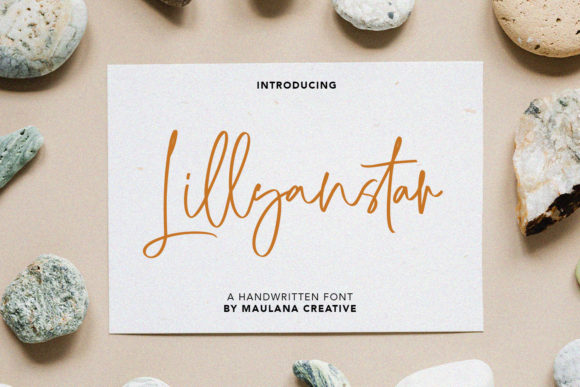
Dive into the world of Lillyanstar Font, a captivating creation by Maulana Creative, meticulously designed to add a touch of sophistication and elegance to your digital communications. This script font captivates with its graceful strokes, delicate curves, and overall timeless charm.
With Lillyanstar Font, transform your email designs into captivating works of art. Its refined and classy aesthetics effortlessly elevate your messages, making them stand out amidst the mundane. Create visually stunning newsletters, promotional emails, and captivating marketing campaigns that resonate with your audience.
Lillyanstar Font beautifully complements logos and branding initiatives. Its modern yet timeless design perfectly captures the essence of your brand, leaving a lasting impression on your customers. Craft logos that exude professionalism, elegance, and creativity. Develop a consistent brand identity that shines across all your marketing materials, from business cards to social media profiles.
Unleash the limitless possibilities of Lillyanstar Font in crafting exquisite invitations and stationery. Design wedding invitations that radiate romance and elegance, leaving your guests in awe. Create personalized stationery that reflects your unique style and personality. Let your creativity flow as you craft thank-you cards, greeting cards, and other paper goods that leave a lasting impression.
Explore the versatility of Lillyanstar Font in social media posts and digital content. Engage your audience with visually captivating posts that showcase your products, services, or simply your thoughts and feelings. Create graphics, quotes, and eye-catching visuals that demand attention and leave your followers wanting more.